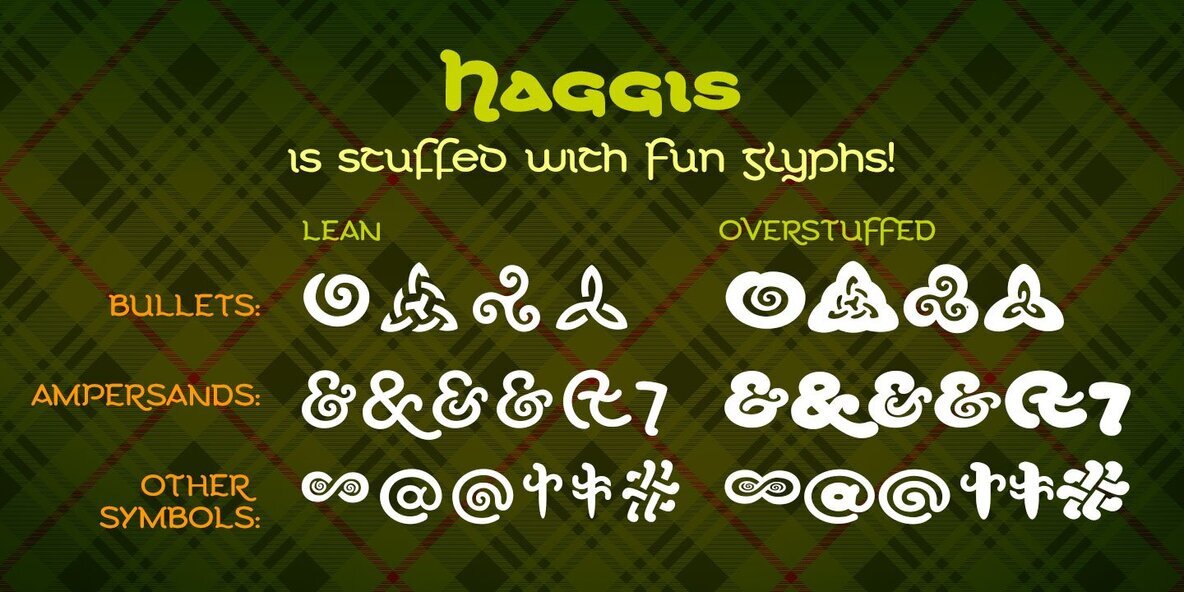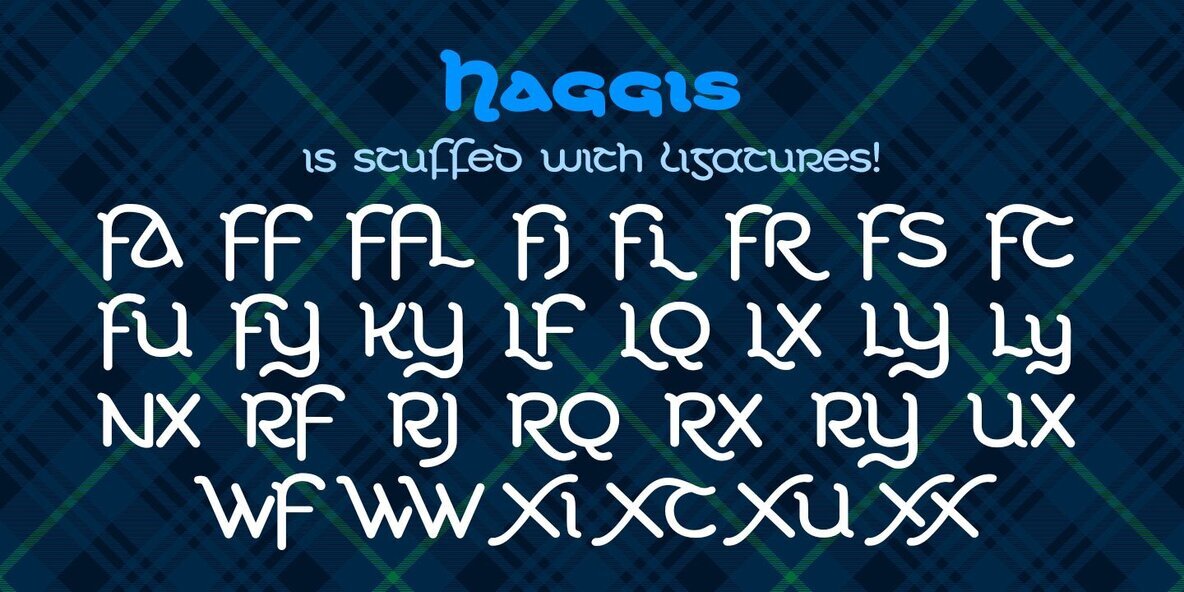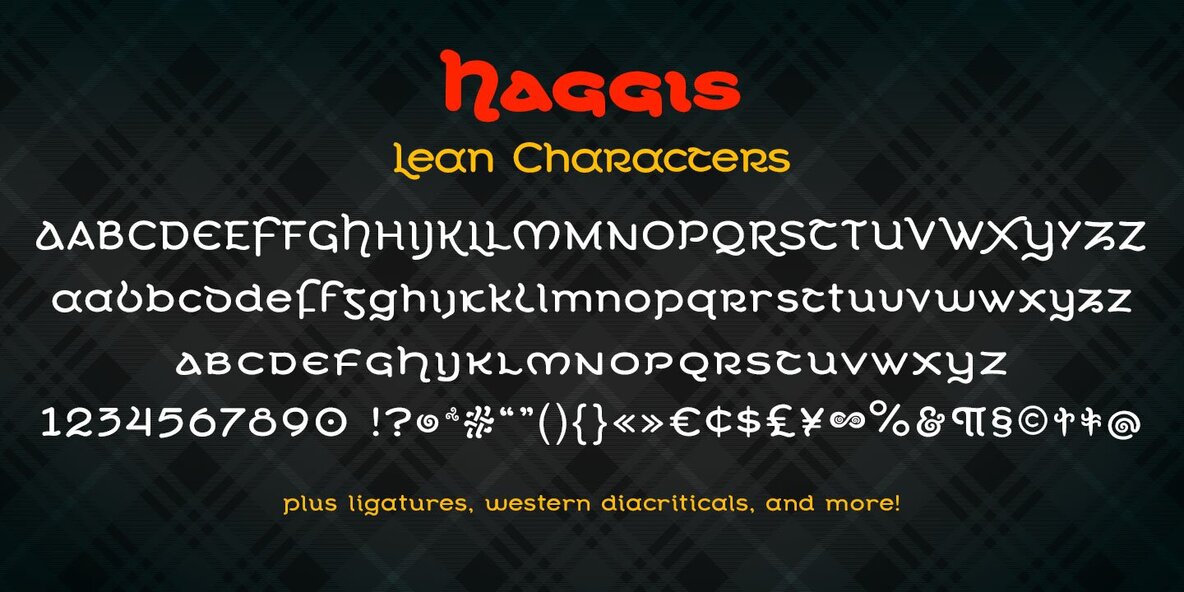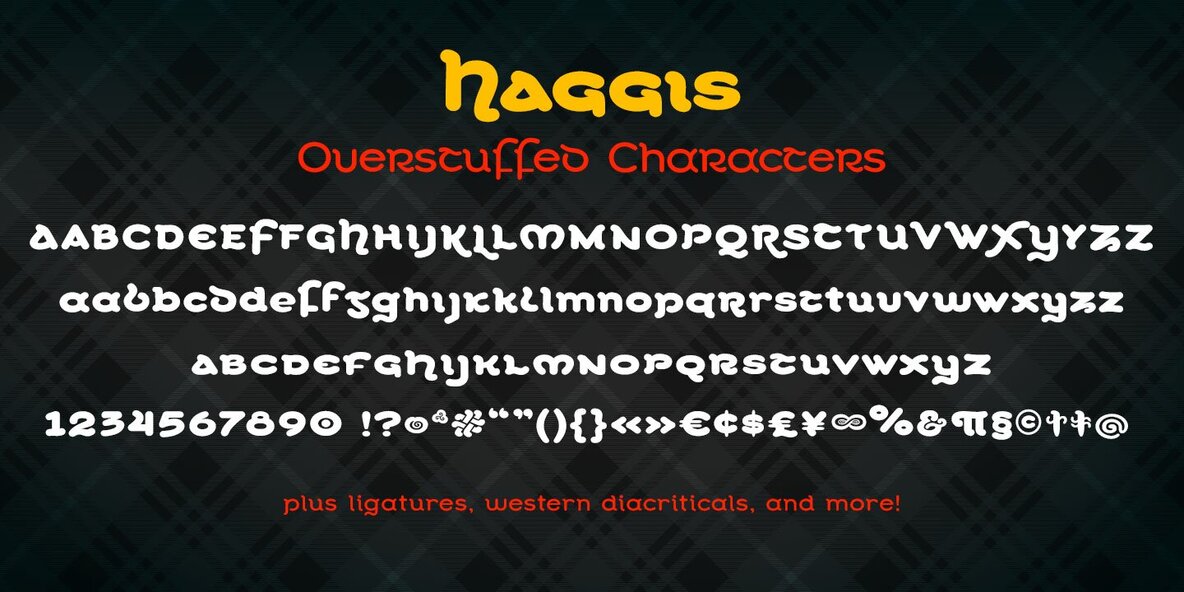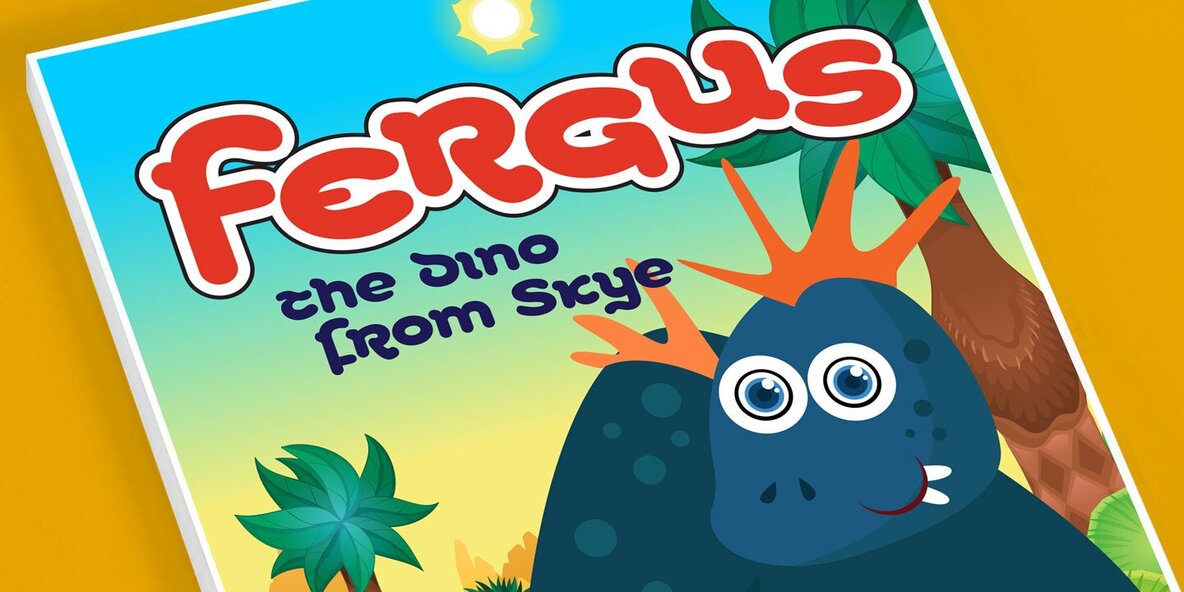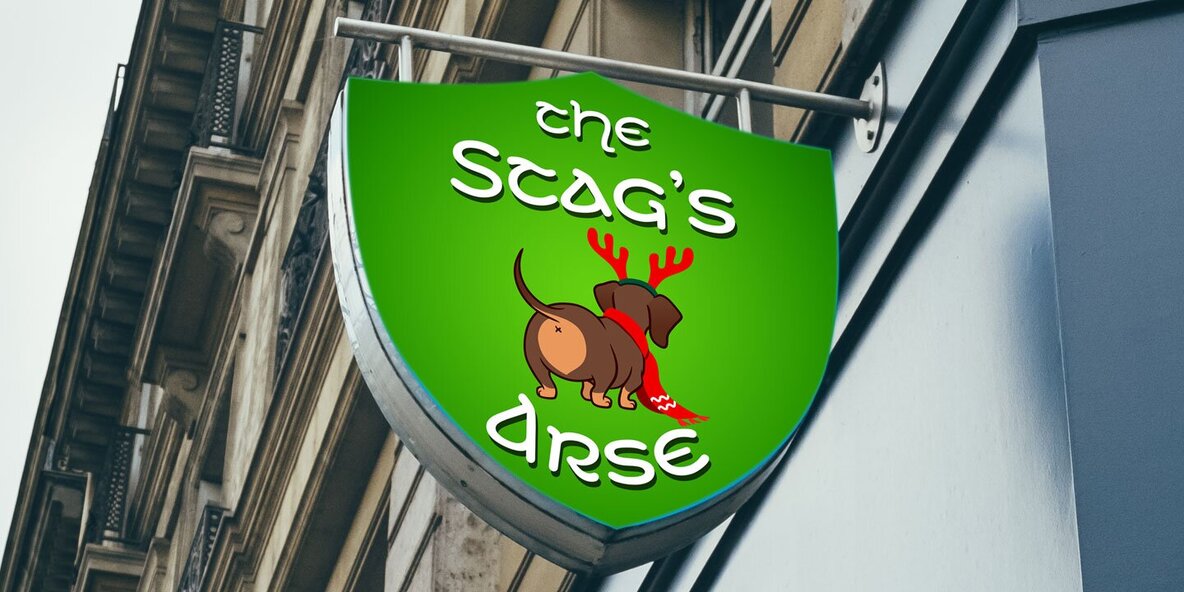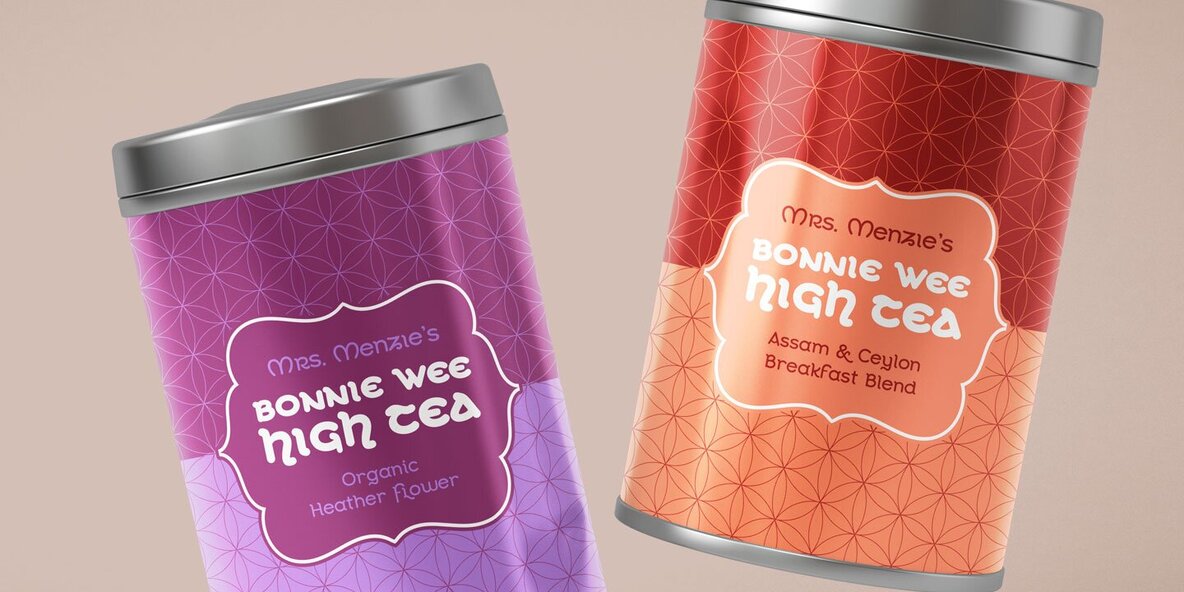
Haggis Font
Haggis Lean
Haggis Overstuffed
Scotland the brave! And…weird! Meet Haggis! Inspired by the Insular Half-Uncial and Uncial typefaces that have long been associated with Scotland, Ireland, and their Celtic cousins, Haggis is an unusual creature—just like its namesake!.
Unlike traditional Uncials, he's monoline, rounded, sausagey, and distinctly lighthearted! Use him for posters, signage (especially pub signs!), kids' stuff, and packaging — anyplace a little quasi-Celtic flavor is desired, but with a fun twist. Must we say it?
He's a Funcial! Tongue-in-cheek though he may be, Haggis has some great features. He comes in Lean and Overstuffed forms, and has full true small caps, standard(ish) Roman alternates for the more out-there characters, lots of ampersand forms (including a true[ish] "Et" and a Tironian and), fun quasi-Celtic bullets, and lots of ligatures. Try him out today — with some tatties and neeps!